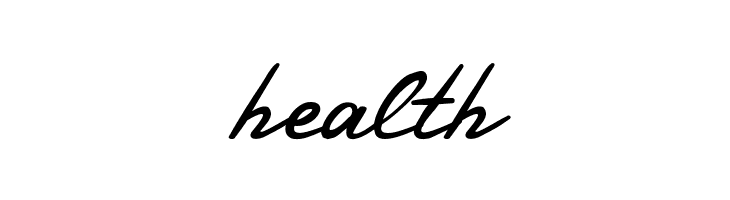
A sophisticated script font with elegant, flowing letterforms.
An elegant script font with flowing, cursive letters and refined flourishes.
A dynamic and elegant cursive script font with smooth connections and moderate contrast.
An elegant and sophisticated cursive script font with ornate uppercase and smooth lowercase letters.